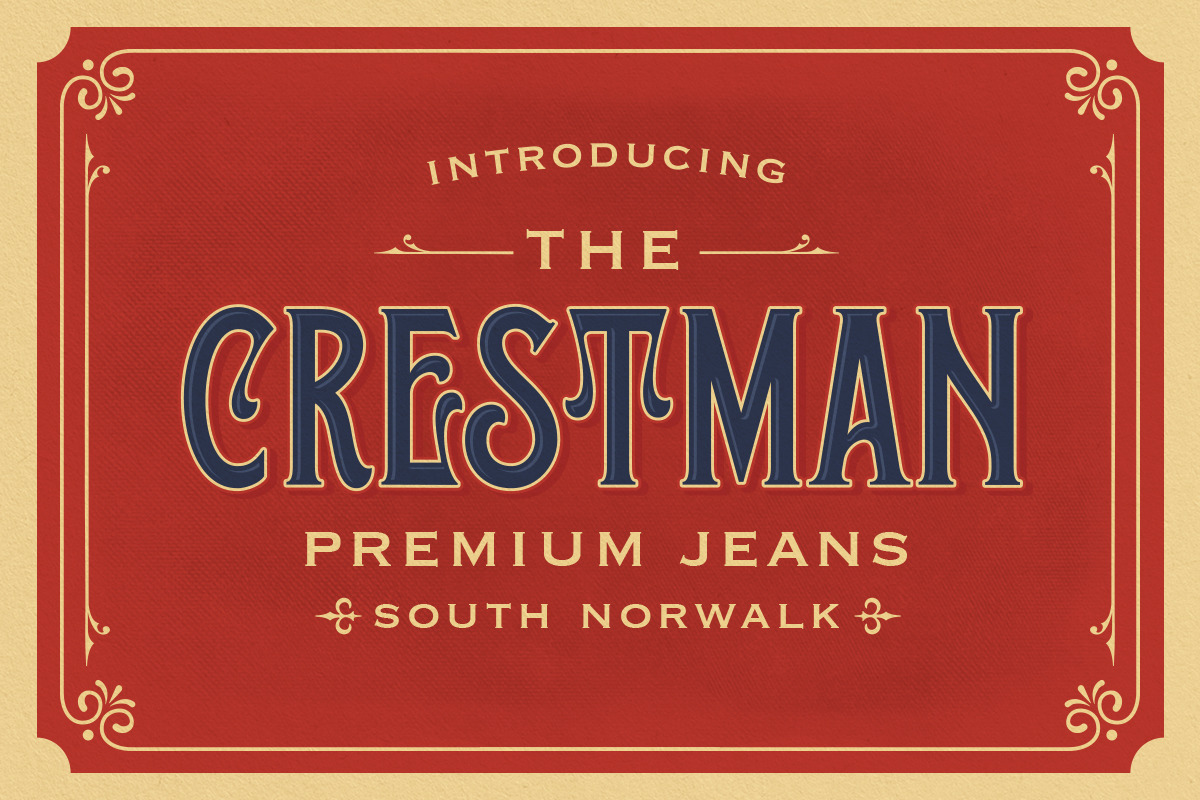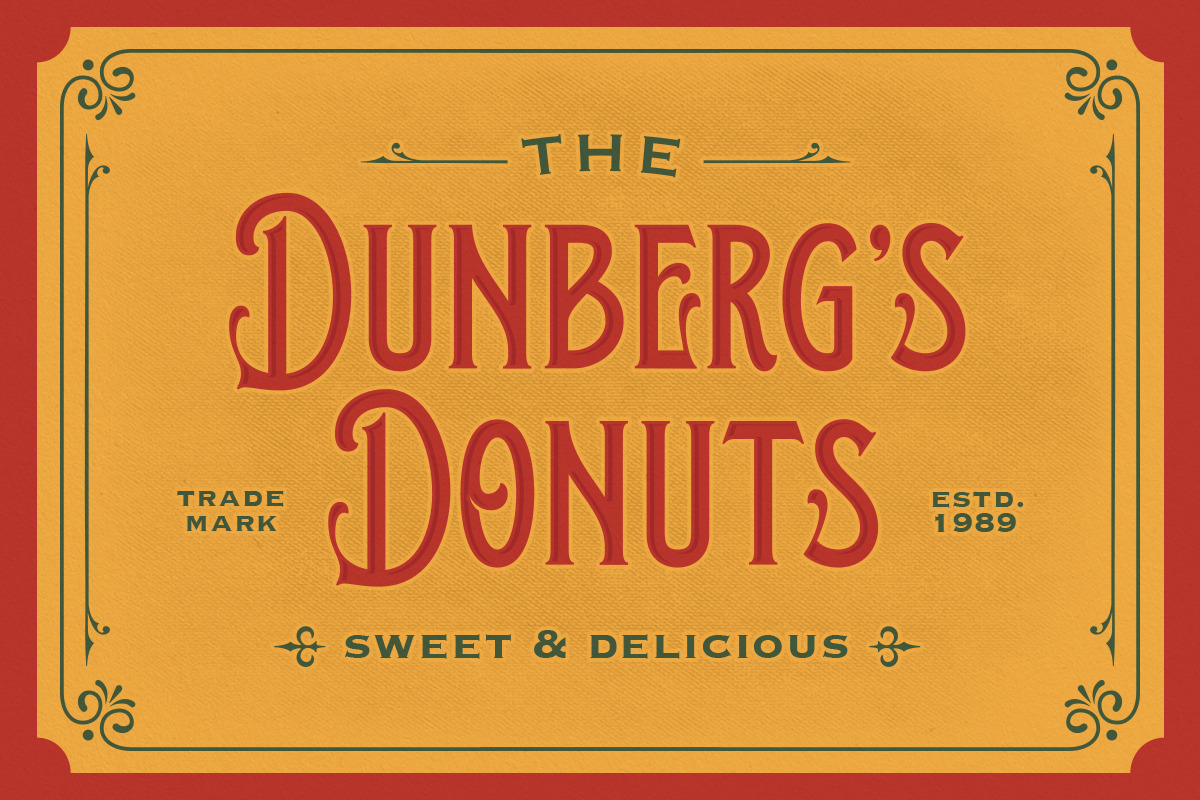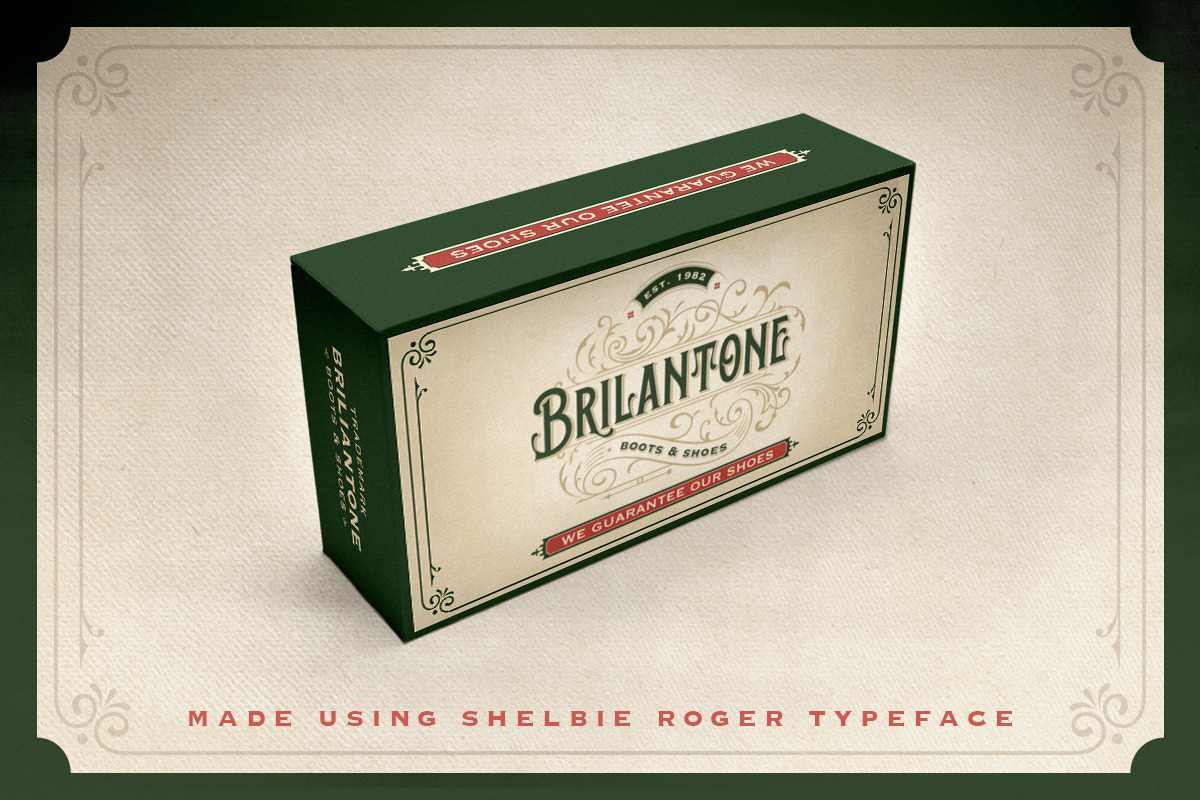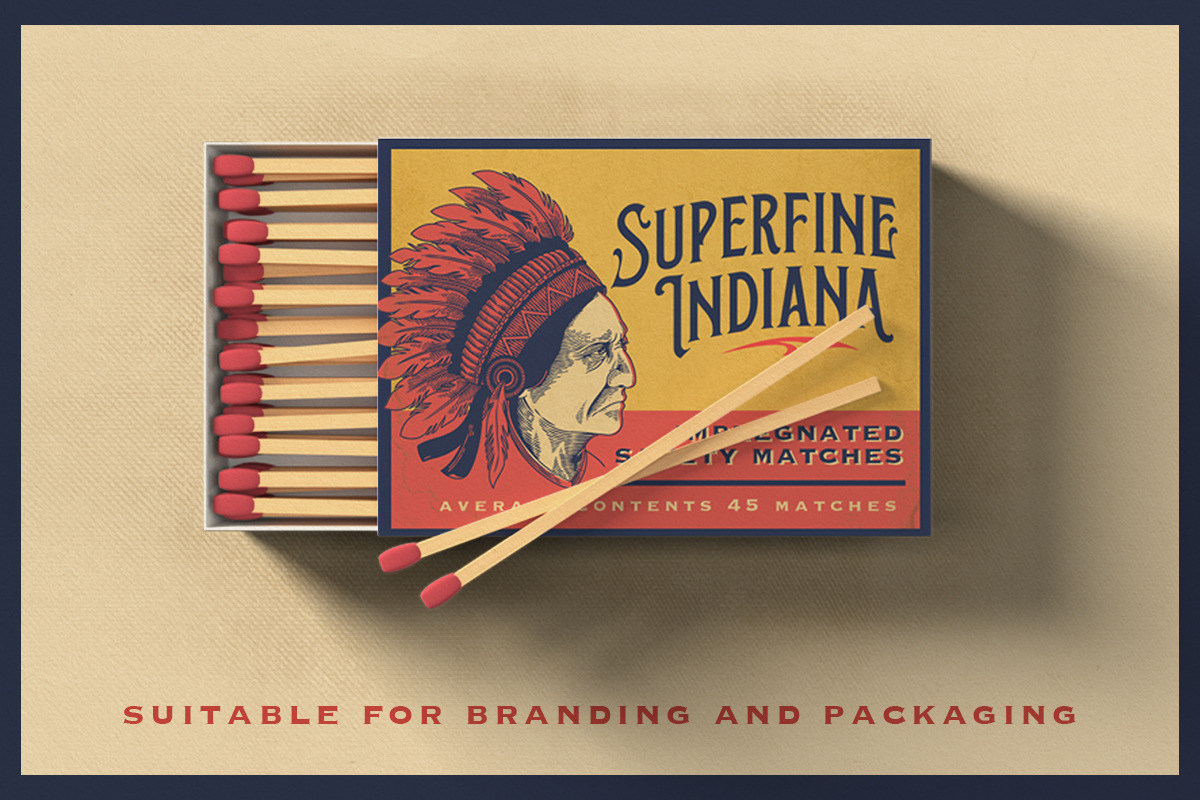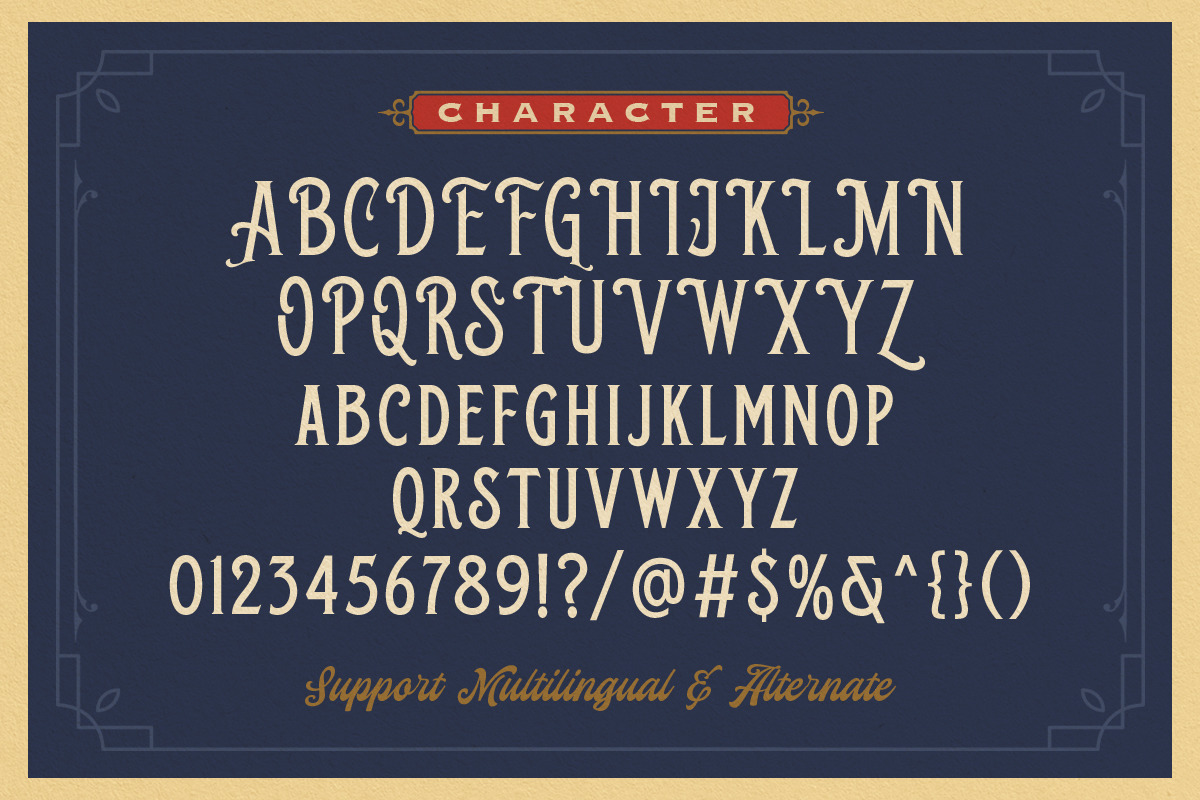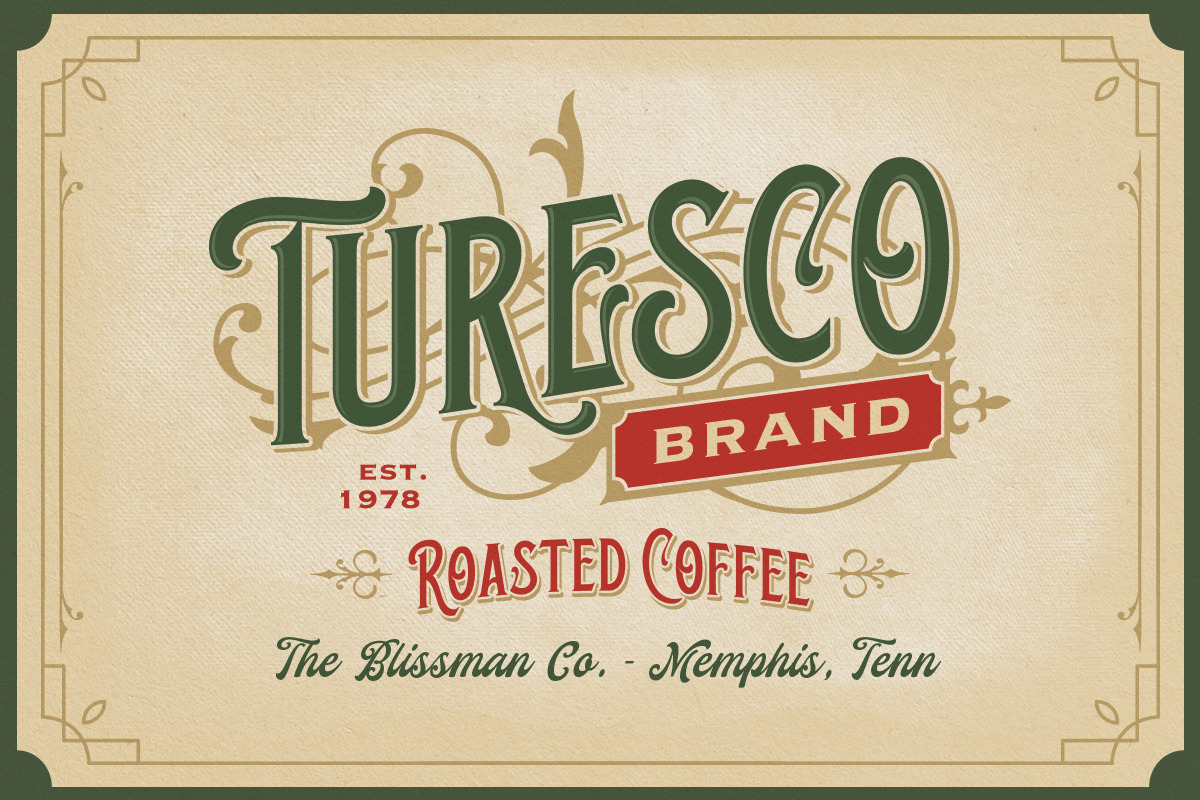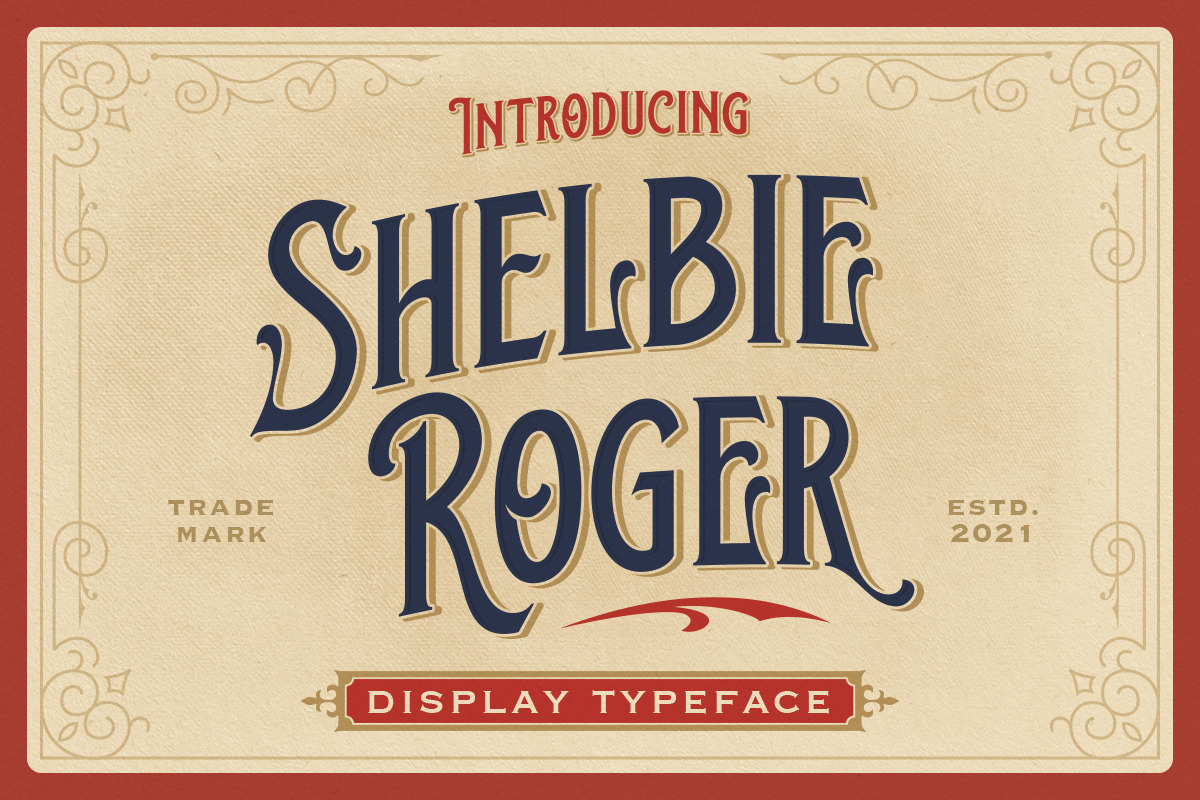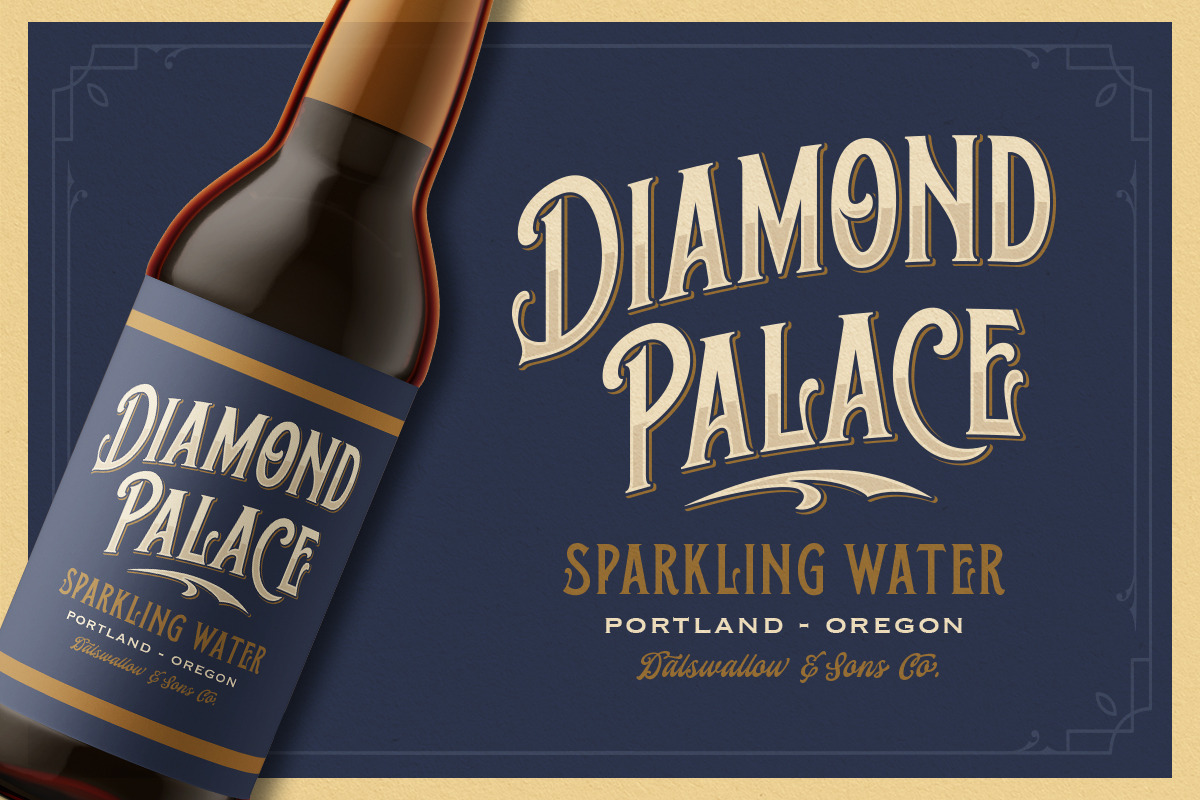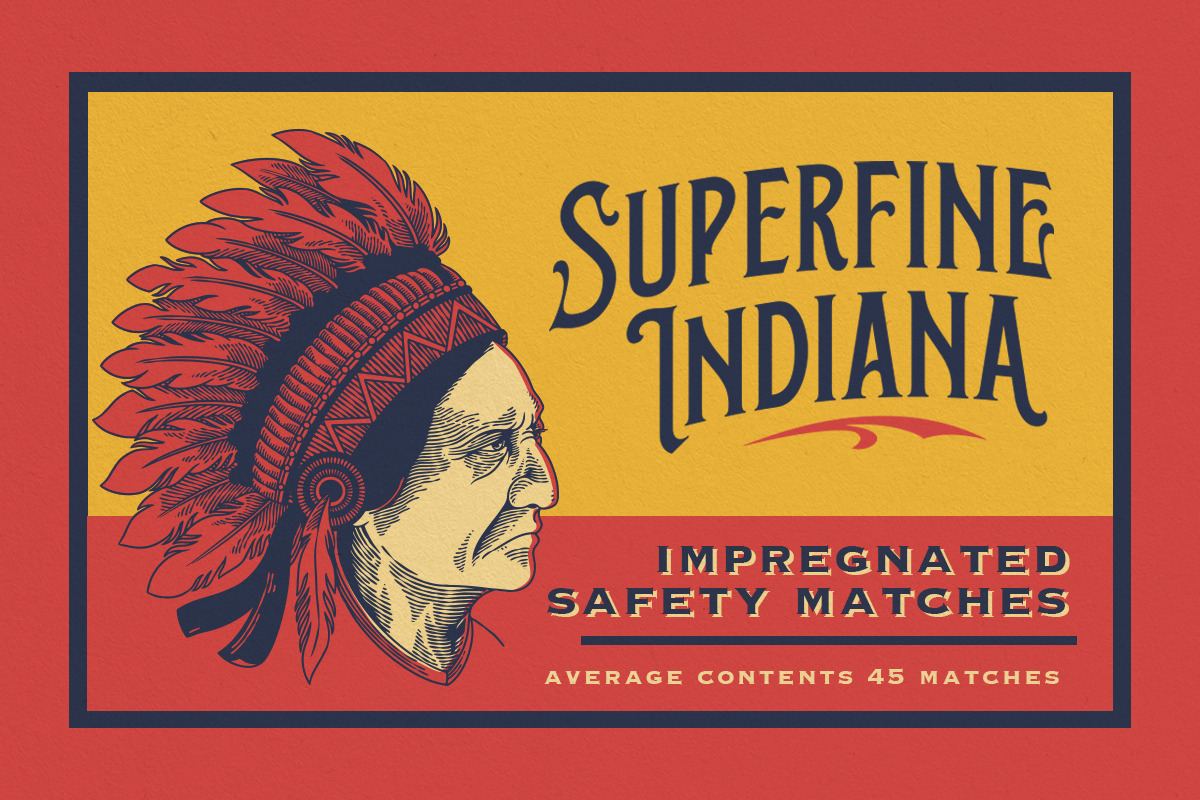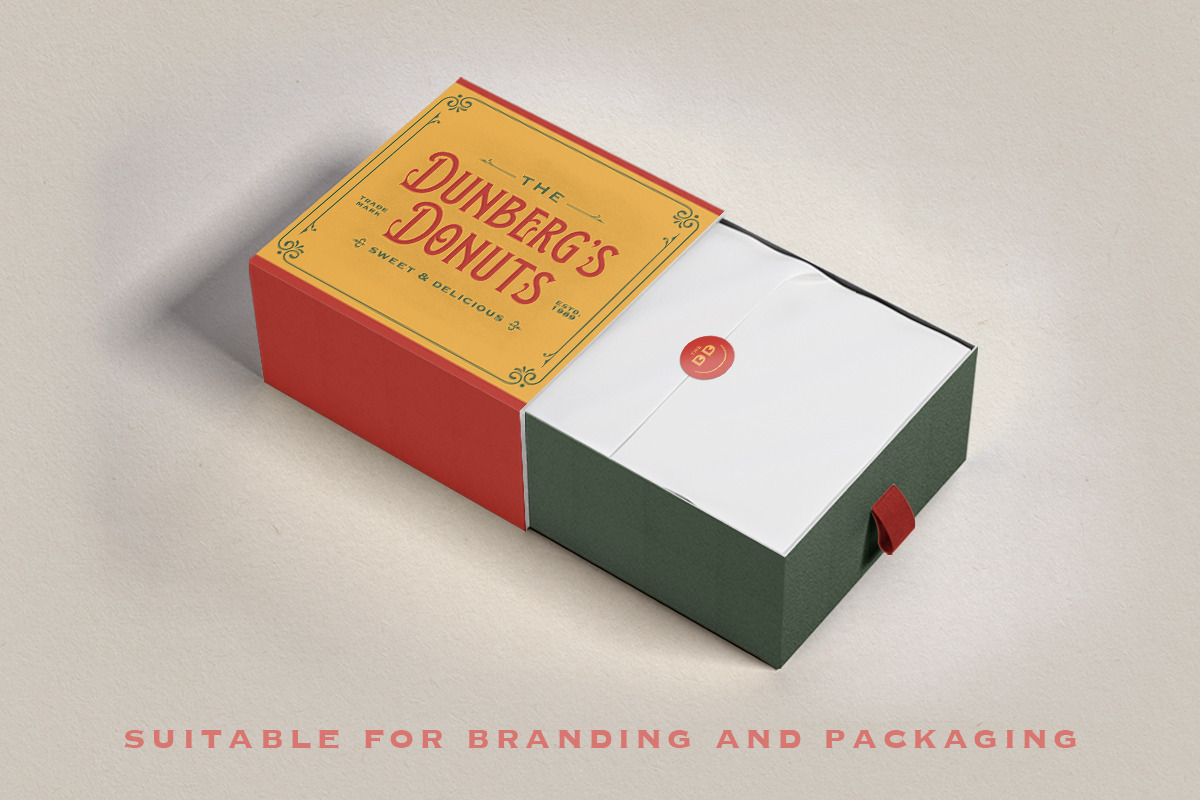
Shelbie Roger - Vintage Display Font
Shelbie Roger is a ornamental serif with classy and classic look with vintage feel, inspired by 60s and 70s signages. This font perfectly made to be applied especially in logo, and the other various formal forms such as invitations, labels, logos, magazines, books, greeting / wedding cards, packaging, fashion, make up, stationery, novels, labels or any type of advertising purpose.
- uppercase and lowercase
- multilingual & alternate